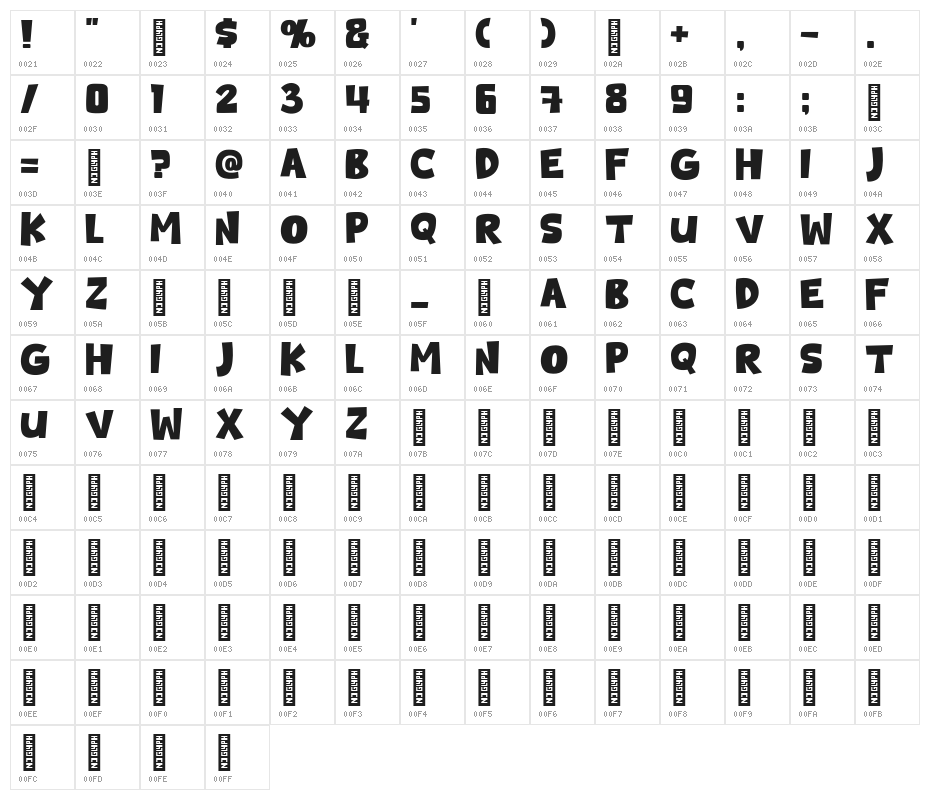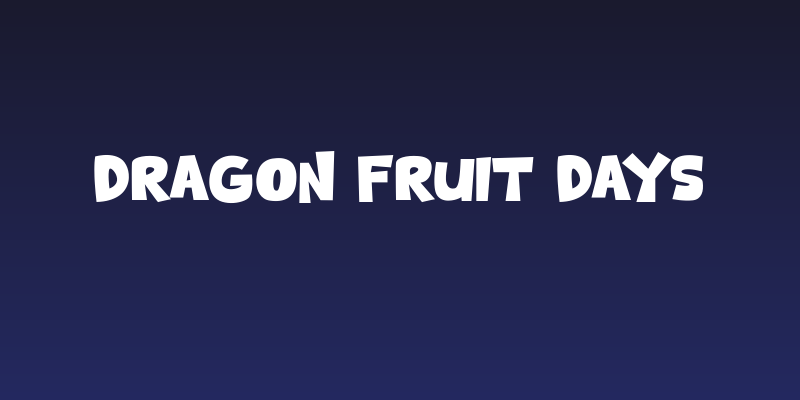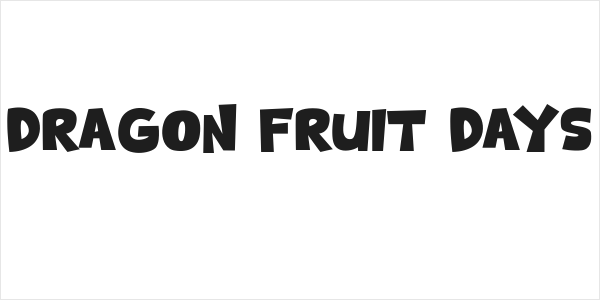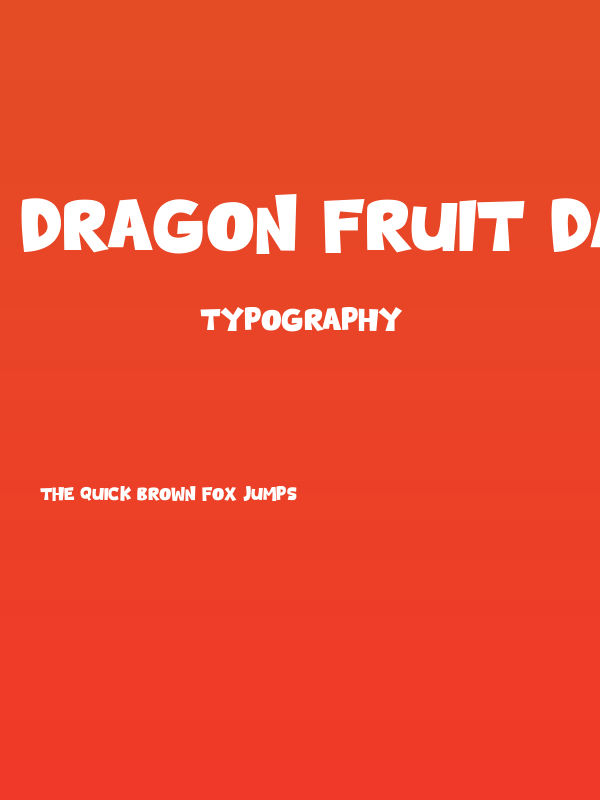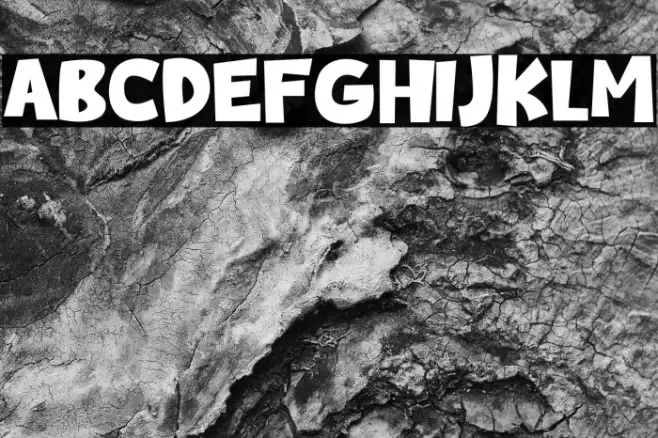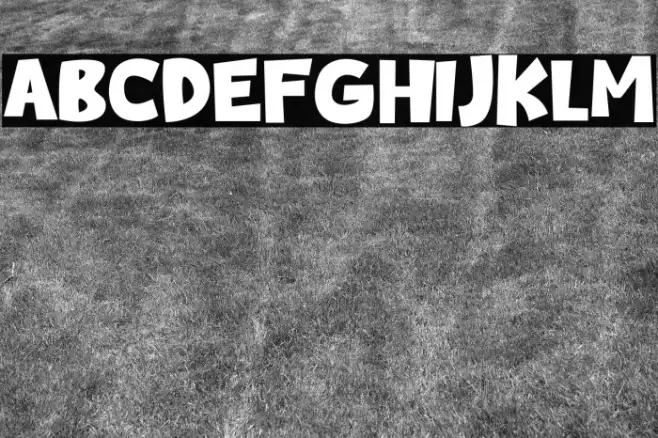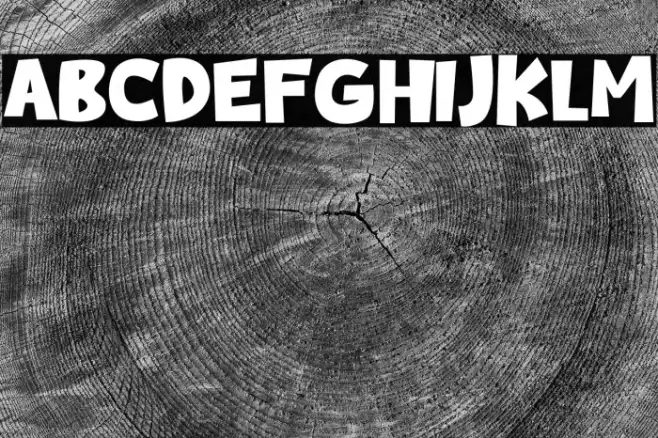
Dragon Fruit Days Font
Dragon Fruit Days Description
This font features bold, playful characters with a slightly irregular and whimsical design. The letters are thick and rounded, giving them a friendly and approachable appearance. The uppercase and lowercase letters maintain a consistent style, with a slight tilt that adds a dynamic feel. The numerals are equally bold, ensuring readability and uniformity across the set. Special characters are included, maintaining the same playful and bold aesthetic. This font is ideal for projects that require a fun and engaging look.
| Proposed Projects | Perfect for children's books, playful branding, posters, and social media graphics. |